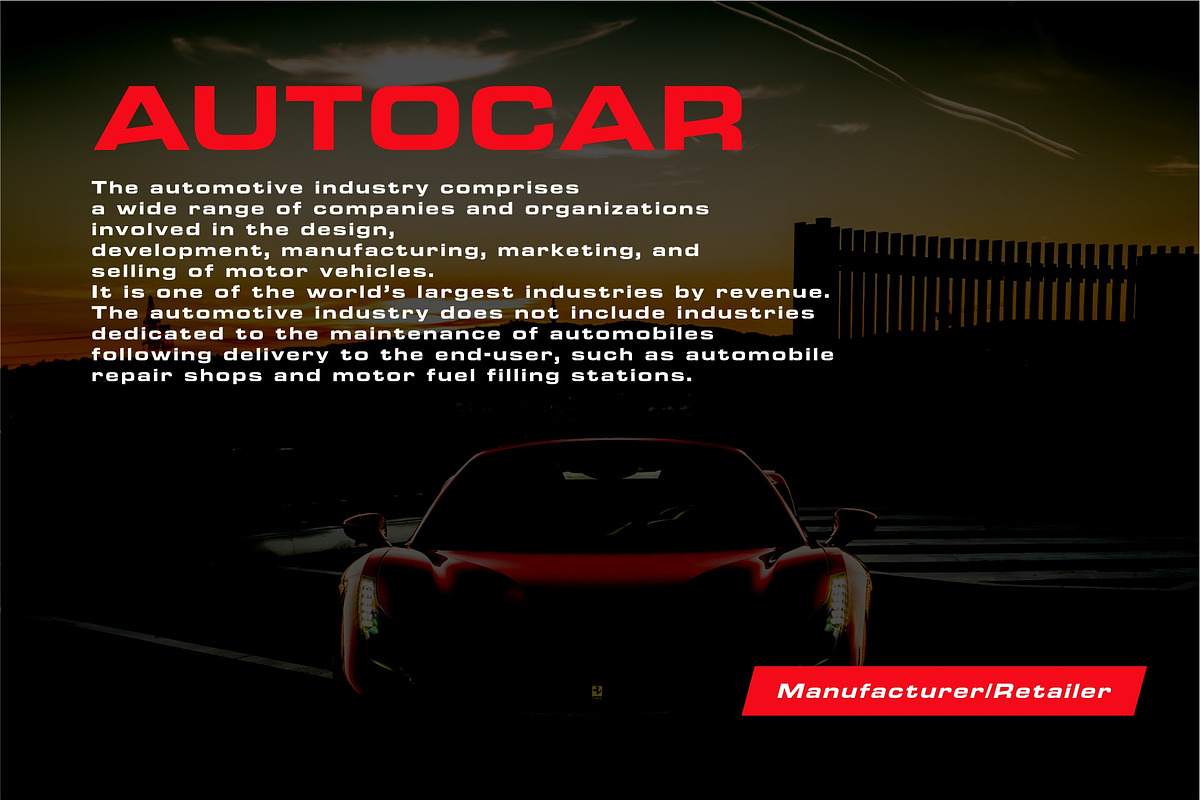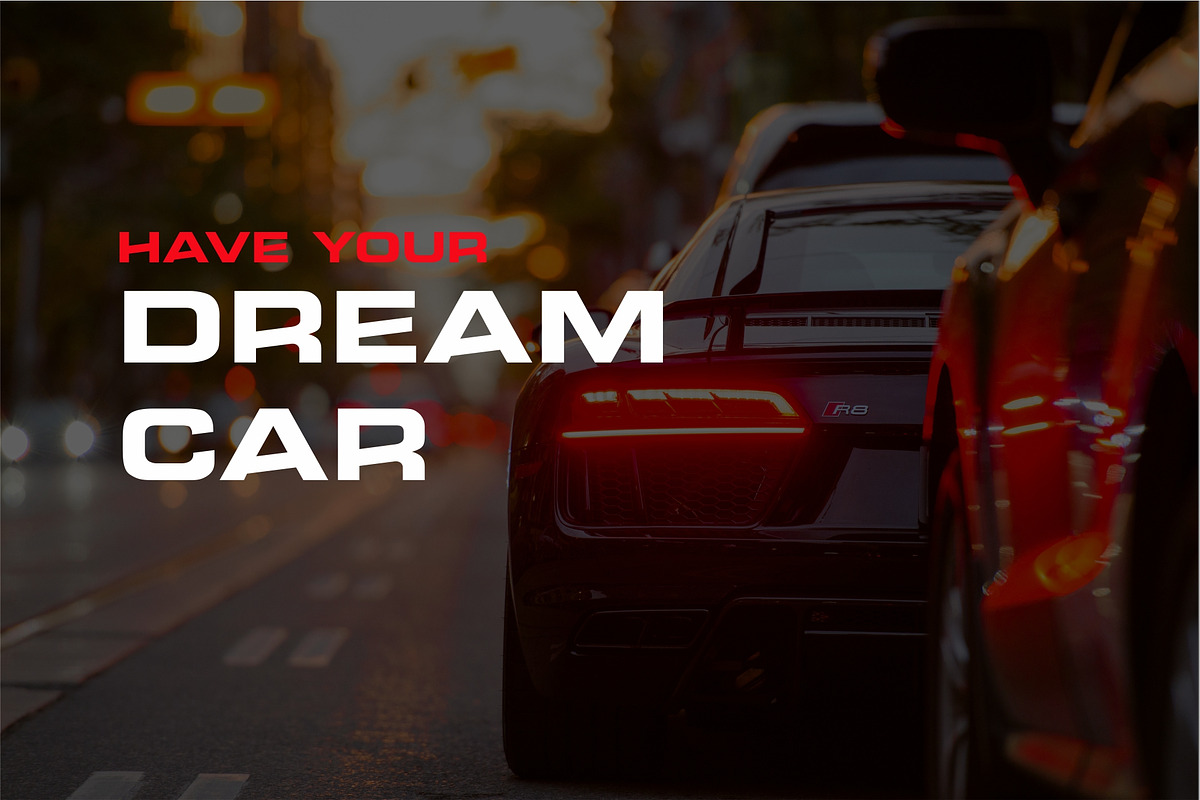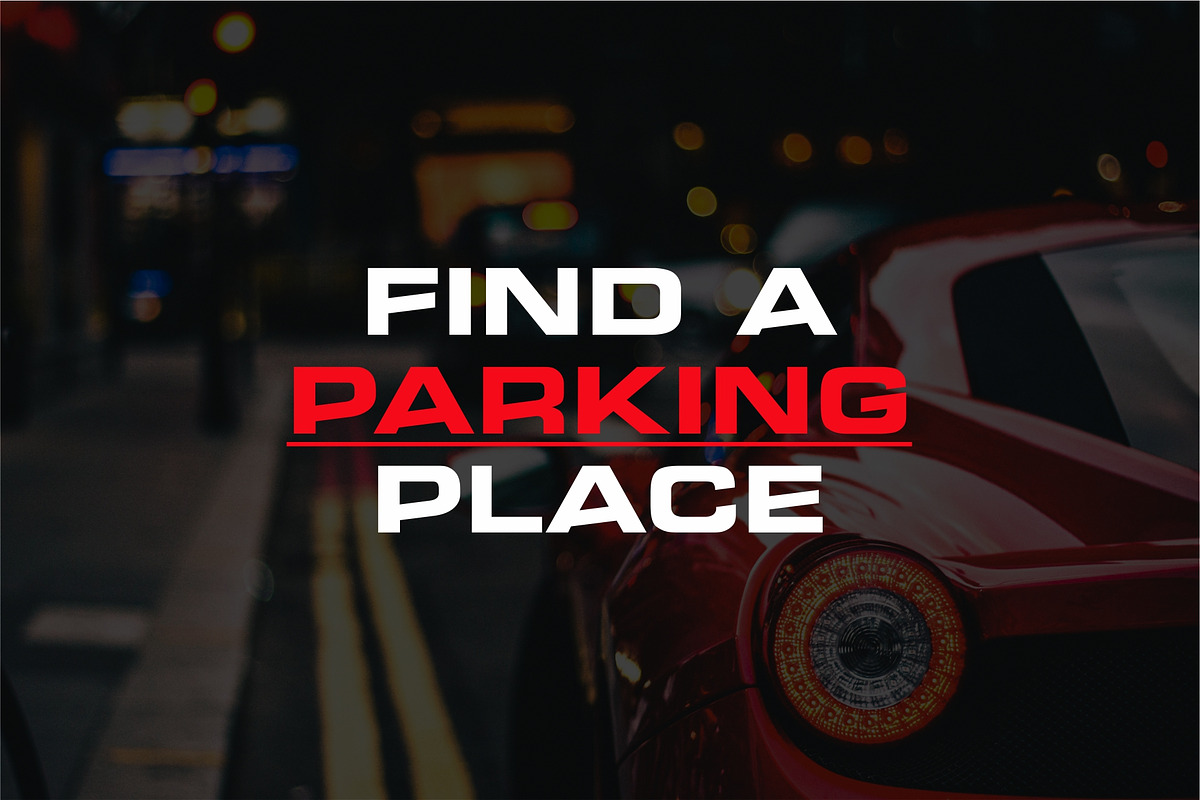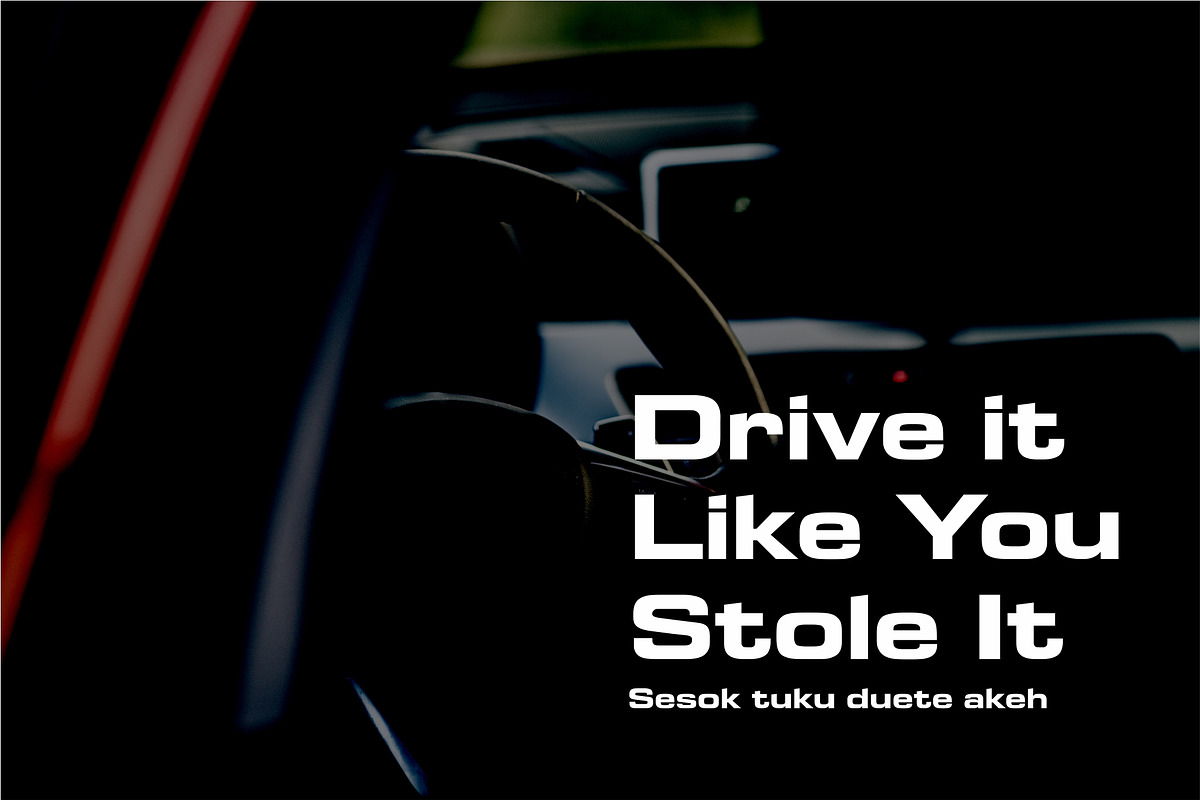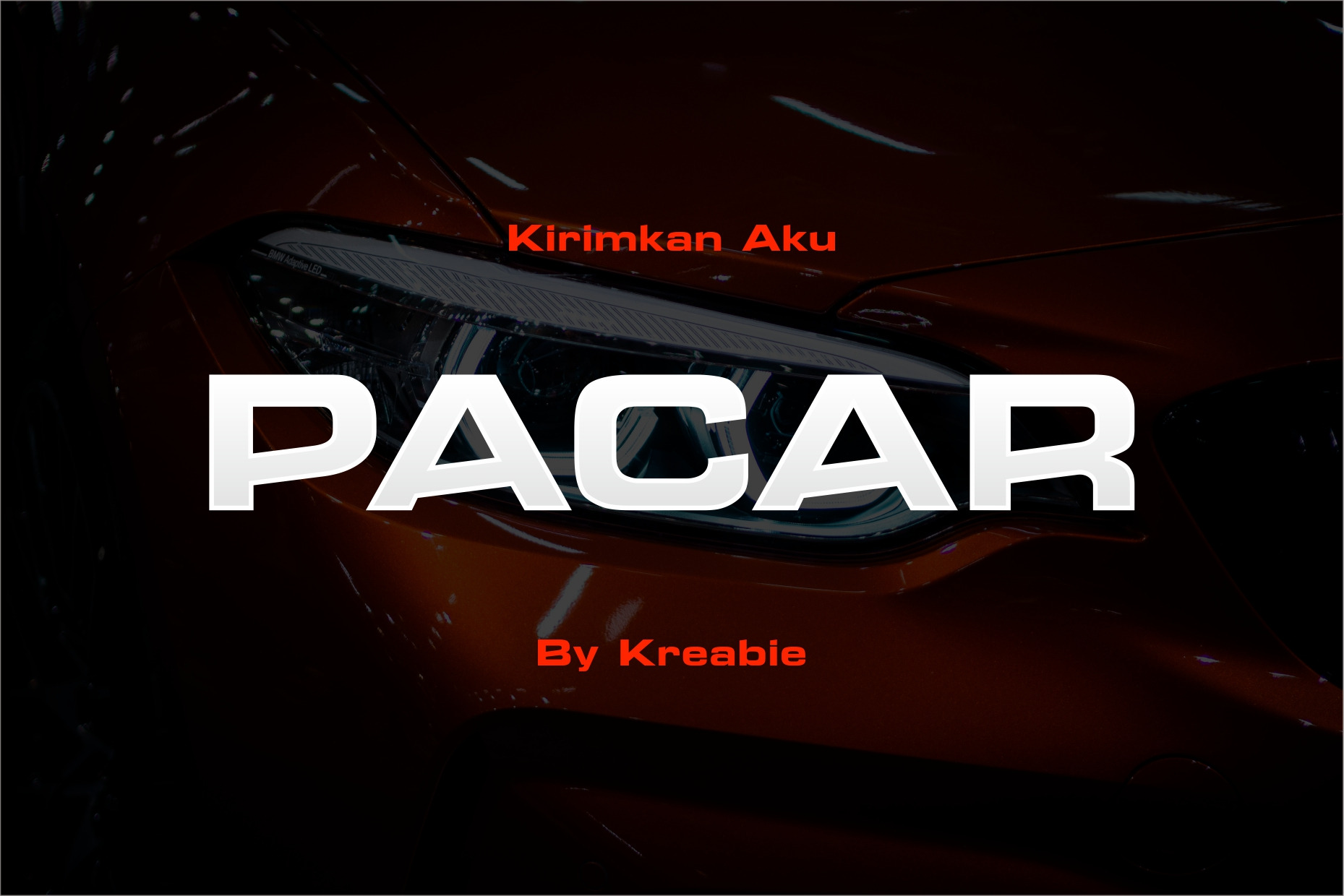
PACAR FONT
PACAR Font
PACAR Its STRONG style makes it stand out from other fonts, making it perfect for anyone who wants to make a statement.,The font is suitable to use for many occasion such as automotive, game, fashion, science music, movie title, brand, technology, space and many more.
- Reguler & Italic